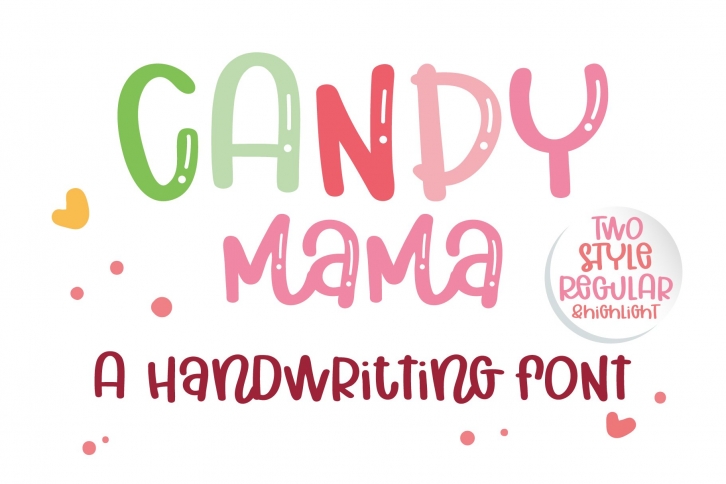
Candy Mama- A handritten is a great font that was designed by RungNoiStudio. Imagine the amount of combinations you can create using this font! The archive is 2.55 MB and it was released on May 3, 2021. Candy Mama- A handritten looks beautiful on wedding invitations, greeting cards, logos, posters, labels, t-shirt designs, logos, business cards and is perfect for use in ink or watercolor works, fashion, magazines, packaging and food menus, children's books and more!